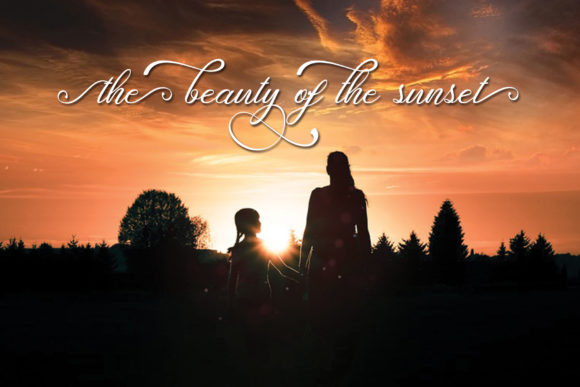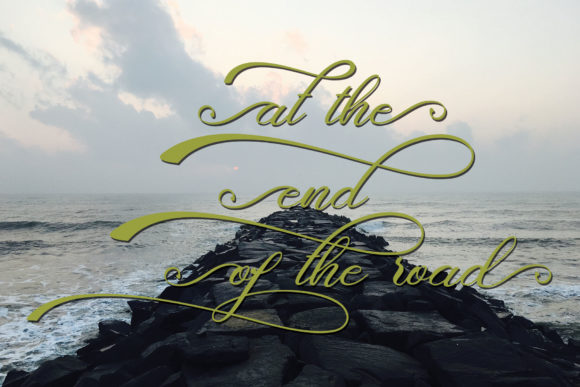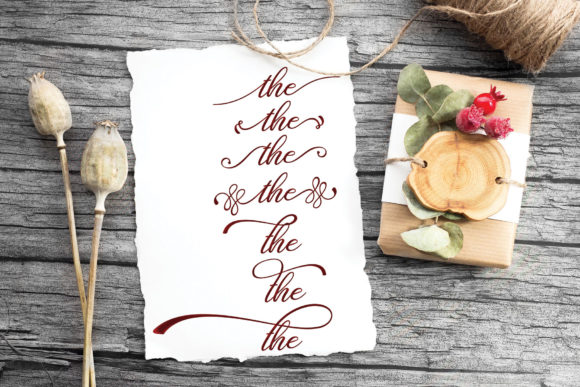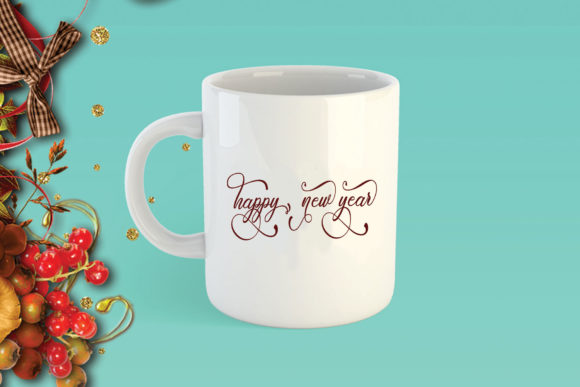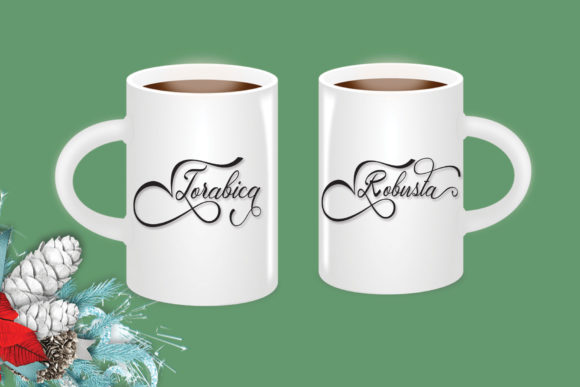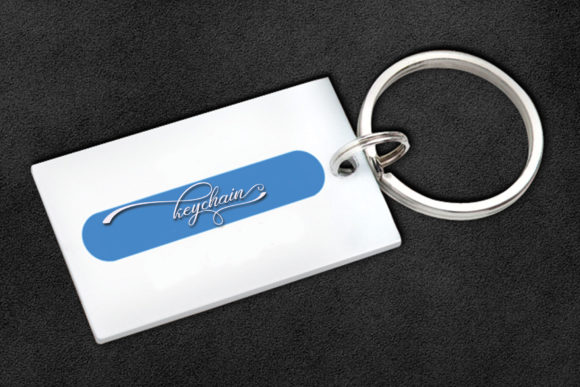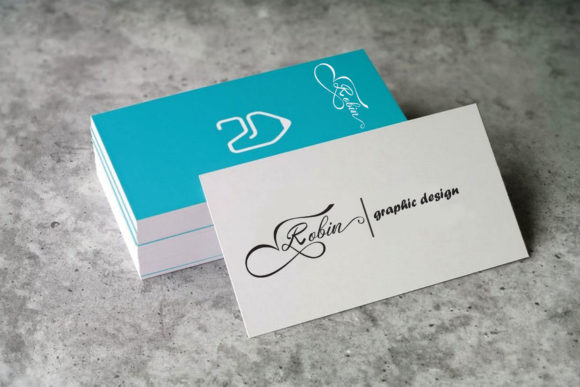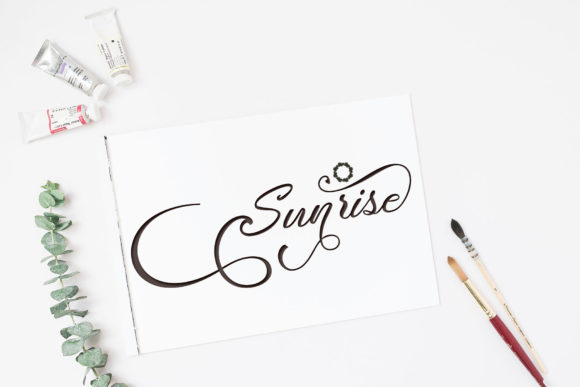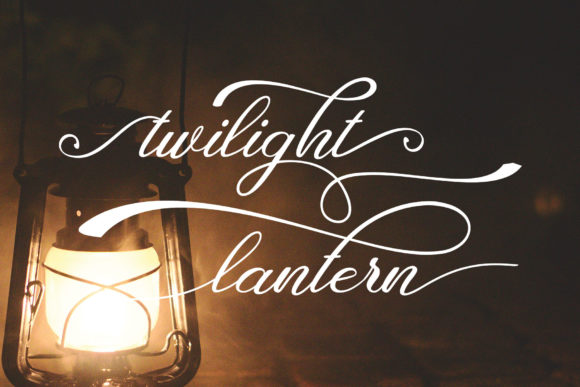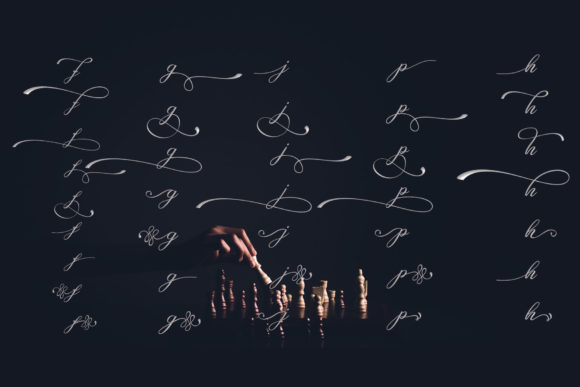
Mountain Script Font
About Mountain Script Font
If you want to add an elegant touch to your current project, then don’t miss Mountain Script. Its elegant style will bring a luxurious and chic touch to your designs.
It’s perfect for titles, signatures, logos, correspondence, wedding invitations, letterhead, signage, labels, bulletins, posters, badges, and every other design which needs an authentic touch.